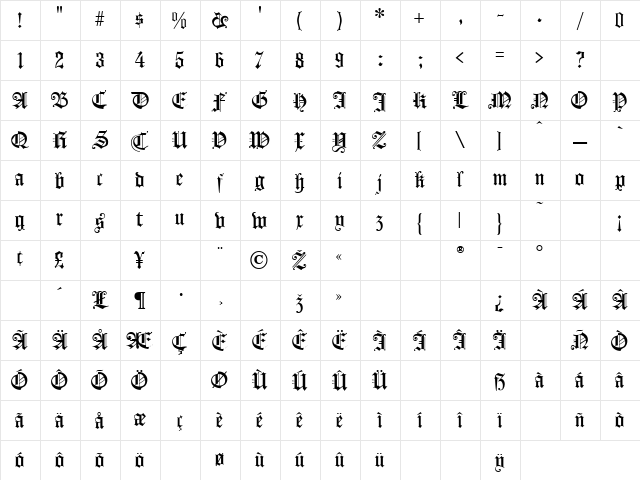
Konigsburg Regular
Design Context for Konigsburg
Konigsburg is a composed and adaptable typeface that performs quietly and consistently across a wide range of design contexts.
Pro Tip: Use Konigsburg in both headline and body roles to test its range before committing to a single application.